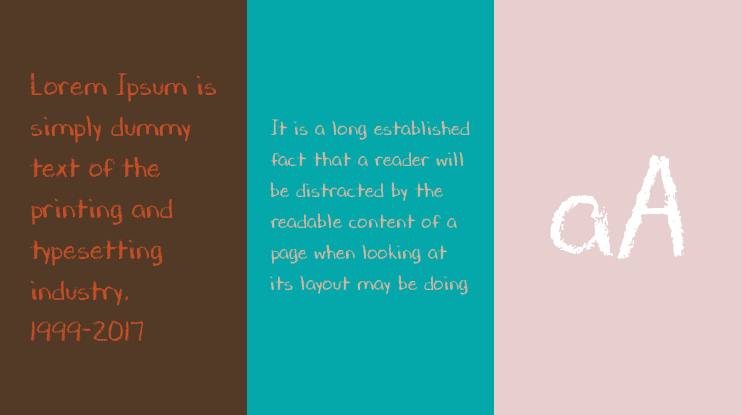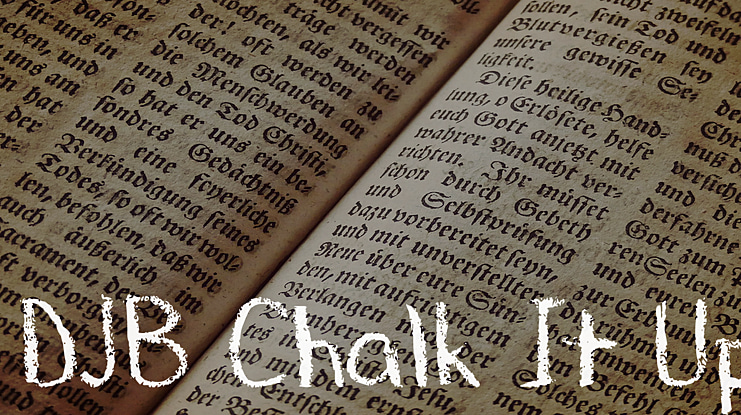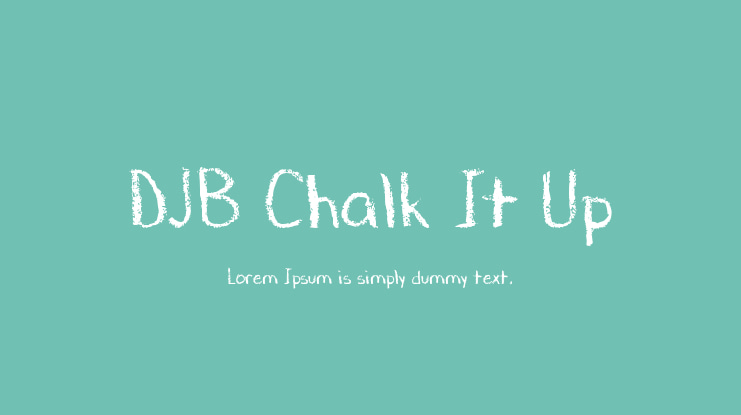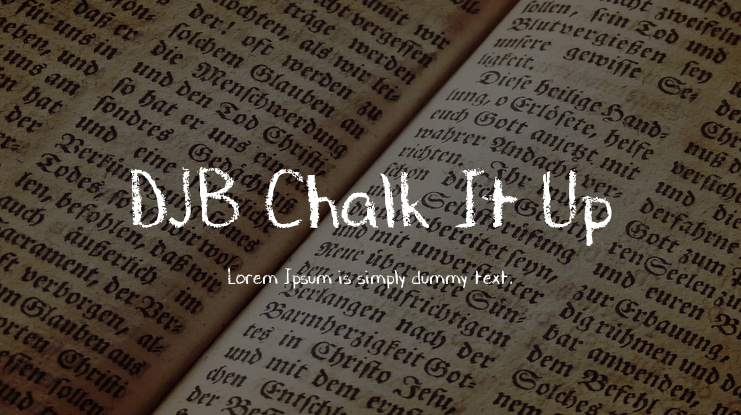
DJB Chalk It Up Font
Darcy Baldwin
A handwritten, chalk-effect font that's perfect for chalkboard and crayon applications. It contains the full alphabet, numbers, punctuation and European language characters.